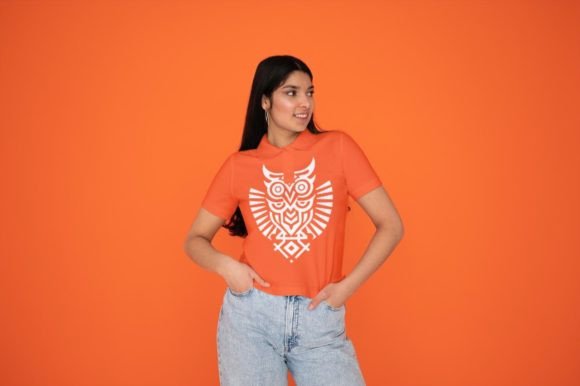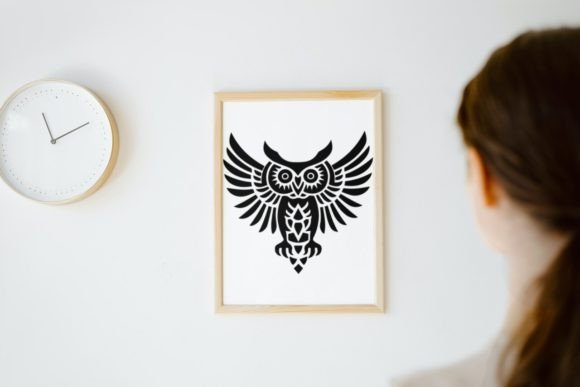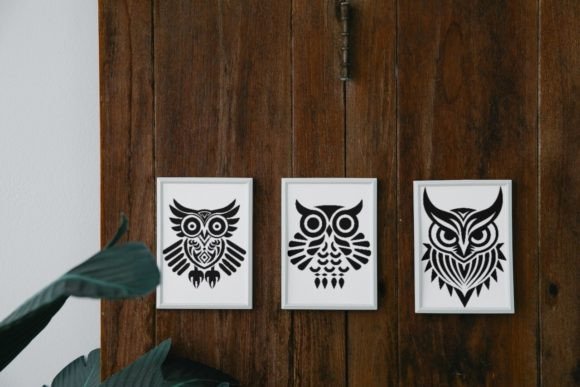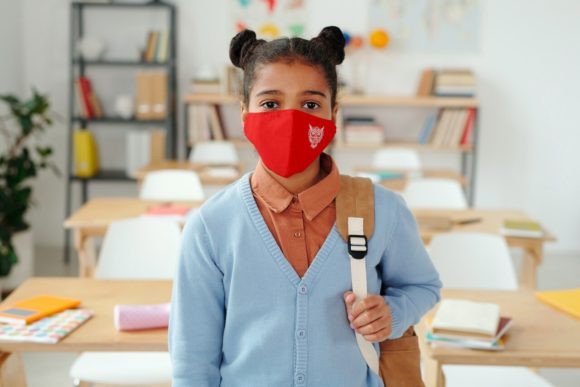
🦉 Introducing Charming Owl Dingbats Fonts Collection 🦉
Are you ready to take your designs to new heights with a touch of whimsy and charm? Look no further than the Charming Owl Dingbats Fonts Collection! This delightful bundle features 36 enchanting owl-inspired designs, each radiating a unique charm and charisma that’s sure to captivate your audience.
🦉 Captivating Alphabets: From A to Z 🦉
One of the standout features of the Charming Owl Dingbats Fonts Collection is its captivating alphabets. From A to Z, each letter boasts intricate detailing, capturing the essence of these delightful creatures. Whether you’re a designer, crafter, or DIY enthusiast, these charming alphabets are sure to inspire your next project. Imagine creating custom invitations, logos, or digital art that showcases your creativity and attention to detail.
A sneak peek into the Charming Owl Dingbats Fonts Collection
🦉 Versatile Creativity: Unleash Your Imagination 🦉
The Charming Owl Dingbats Fonts Collection is incredibly versatile, making it perfect for a wide range of design applications. Whether you’re creating:
- Invitations for a baby shower or birthday party
- Logos for a new business or brand
- Digital art for social media or blogs
- Stationery or greeting cards
…the possibilities are endless! Let your imagination take flight with the charm of owls and create something truly unique and eye-catching.
🦉 Artistic Details: Where Magic Meets Design 🦉
Every symbol in the Charming Owl Dingbats Fonts Collection reflects the captivating charm of owls, adding a touch of magic to your creations. From the intricate details to the playful designs, each element is carefully crafted to bring a sense of wonder and enchantment to your projects.
🦉 Embrace Charming Owls: Elevate Your Design Game 🦉
If you’re looking to elevate your design game and infuse your projects with whimsical allure, look no further than the Charming Owl Dingbats Fonts Collection. With its unique blend of charm, creativity, and attention to detail, this font collection is sure to:
- Capture the hearts of your audience
- Set your designs apart from the rest
- Inspire your creativity and imagination